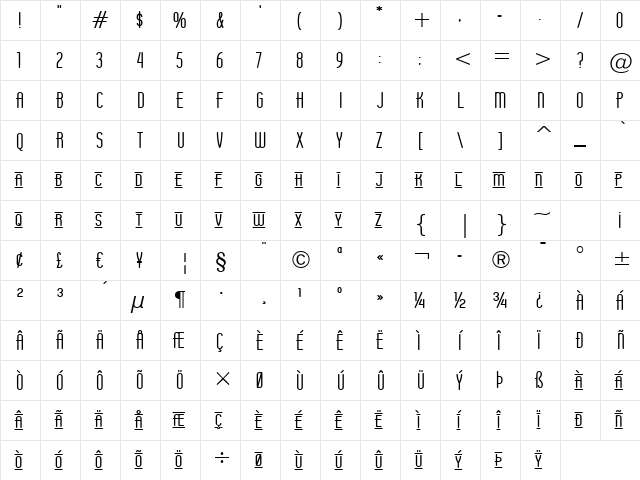
Operator Nine BTN Lined Bold
Design Context for Operator Nine BTN Lined Typeface
Operator Nine BTN Lined takes a measured approach to typography — its balanced proportions and neutral character make it a reliable workhorse for both digital and print work. Its bold stroke weight gives it real presence on the page.